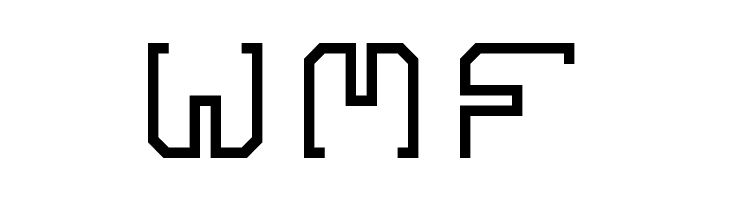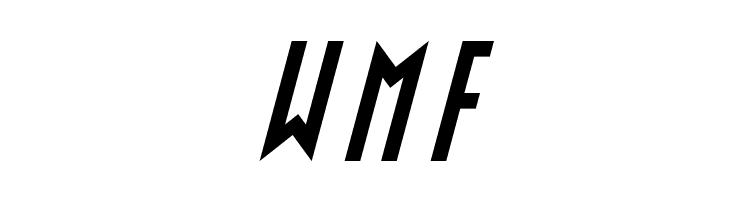
• SKATE
Skateboarding-themed pictogram font with silhouettes and icons.
• Skeksis
A bold, gothic-style font with sharp, angular edges and a dramatic flair.
• Sketchy Ghost
A playful, sketch-like font with a ghostly and whimsical appearance.
• Sketchzone
A hand-drawn, sketch-style font with textured, artistic characters.
• Skin And Bones
• Skinny Zebra
A playful, bold outline font with a whimsical and energetic style.
• Skinny Zebra 2
A bold, playful font with a zebra-like pattern and strong contrast.
• Skinnymalink
A playful, bold, hand-drawn font with a cartoonish style.
• SKOV
• Skygraze
A bold, futuristic font with angular, geometric shapes and a modern, edgy style.
• Skylake
A bold, energetic handwritten font with flowing, playful letterforms.
• SL Thank You For The Venom
A bold, angular font with a modern, geometric style.
• SlashThirty
A dripping, eerie font ideal for horror-themed designs.
• sleeperzzzz
A bold, brushstroke-style font with a dynamic and artistic appearance.
• Sleeping
A playful, bold font with rounded, bubbly characters perfect for fun and creative projects.
• Sleeping Italic
A bold, playful, handwritten-style font with rounded, slanted letters.
• Slenderscratch
• Slenderscratch Italic
• SlickRoadsDT
A bold, handwritten font with a playful and dynamic style.
• Slightly Eroded
A bold, distressed font with an eroded, vintage texture.